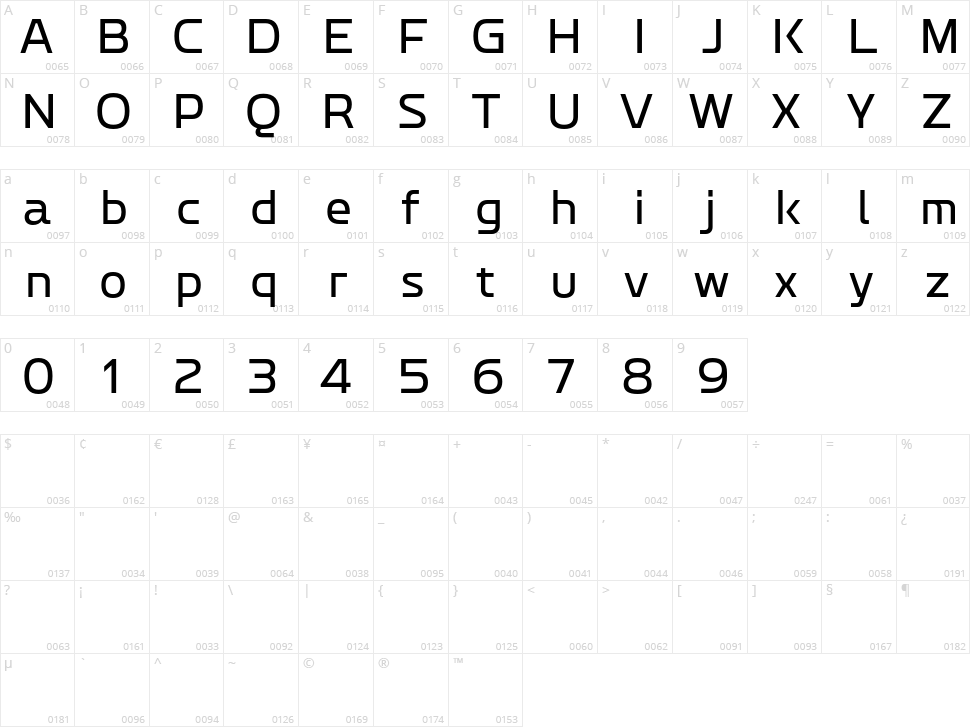
Bantat font is a simple Sans Serif typeface designed to flatter parallel to the baselines and x-height. Suitable for general work on media in a variety of sizes, whether wide or narrow. Full version available in 18 weights and 5 widths, both upright and italic have 90 Styles in total.